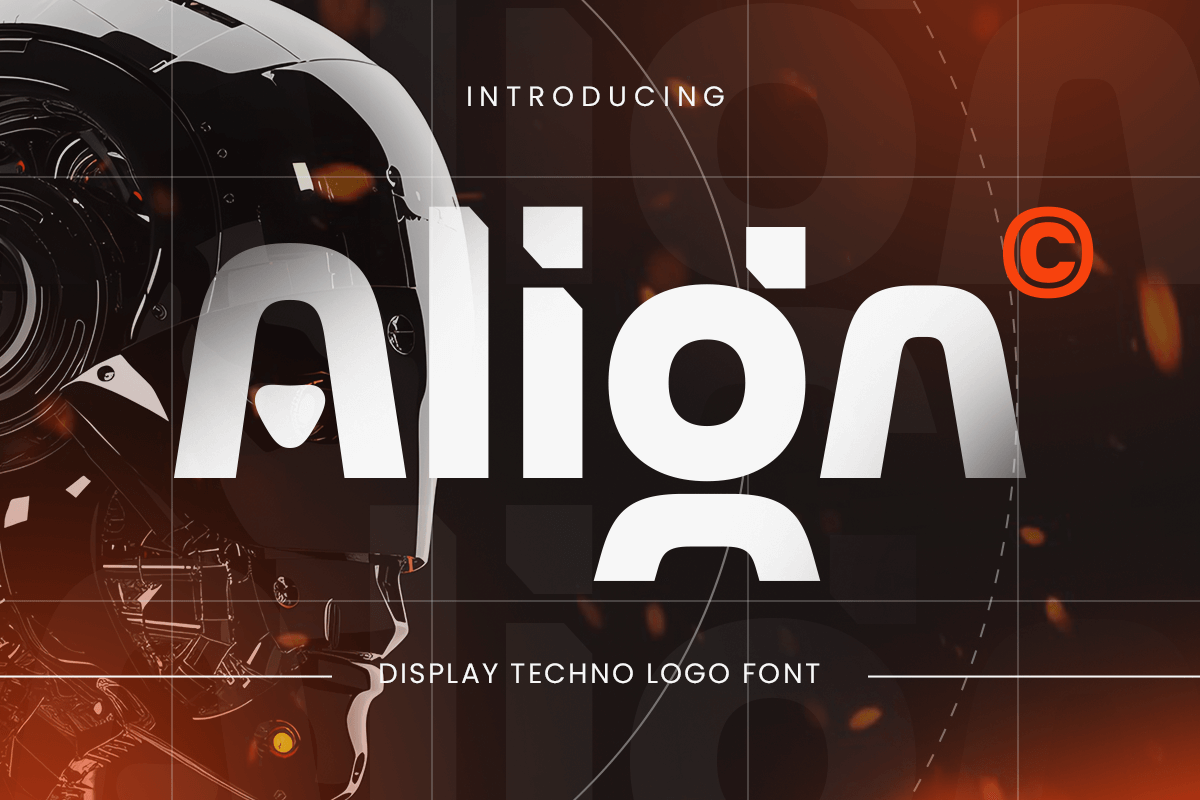
Align
-Display Futuristic Techno Logo FontAlign - Display Futuristic Techno Logo Font
Align is a display techno font designed for futuristic and modern design projects. Perfect for logos, branding, posters, and digital media, it combines sharp geometry with a sleek, bold aesthetic.
Inspired by digital and techno styles, Align delivers clarity, precision, and a professional look. Its versatile design makes it suitable for both print and digital applications.
Align – Display Techno Logo Font Features
Bold and futuristic display characters
Ideal for logos, branding, and modern designs
OpenType features for extra versatility
Make futuristic logos and branding bold and sleek with Align – the ultimate techno display font.